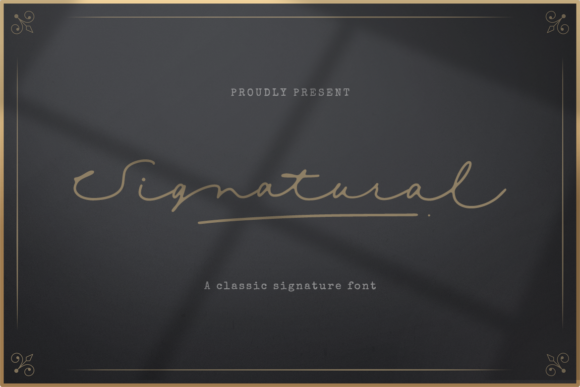
Introducing Signatural Font - A Delicate Script Font for Modern Logos and Beyond!
Awaken your design visions with the enchanting Signatural Font, a thin lettered and delicate script font crafted with love. This elegant font will take your breath away with its graceful curves and playful personality. Step into a world of creativity where Signatural's fine lines and delicate touch bring a touch of romance to every project.
With Signatural, your designs will exude a timeless beauty, captivating your audience with its gentle allure. Its thin strokes lend an air of sophistication, making it the perfect choice for modern logos, branding, wedding invitations, and social media designs. Imagine the joy and happiness this font will bring to your projects, adding a touch of elegance and charm that resonates with your audience.
Unlock the endless possibilities of Signatural and let your imagination soar. Express your unique style through stunning logos, eye-catching branding, and enchanting social media posts. Unleash your creativity and weave a tapestry of visual delight with Signatural's captivating presence. It's time to leave a lasting impression and elevate your designs to new heights.
Experience the magic of Signatural today and unlock a world of creative possibilities. Embrace the beauty of thin lettered elegance and let your designs shine with a touch of romance and sophistication.